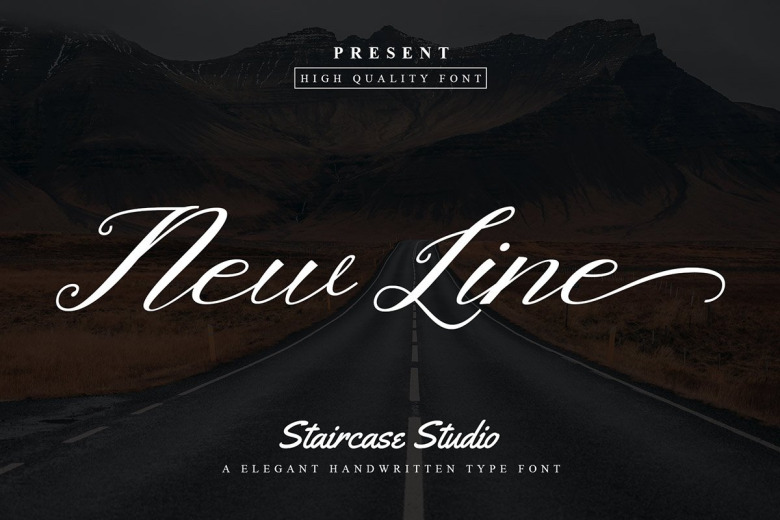
Newline Font
This is casual calligraphy typeface, with clean contrast stroke, super slanted and fun character. A collection of letters and numbers suitable your projects also great for Logotype, Branding Design, Logo Design, Digital Lettering Arts, T-Shirt/Apparel, Poster, Magazine, Signs, Advertising Design, and any design needs.